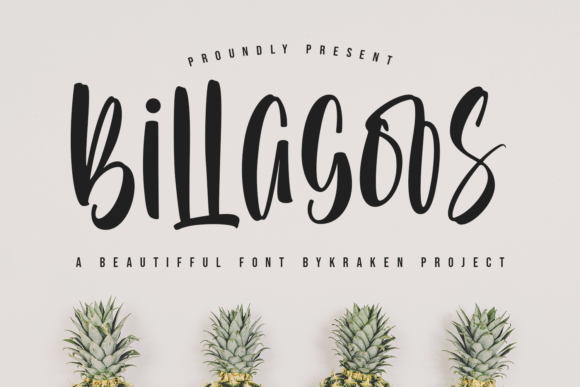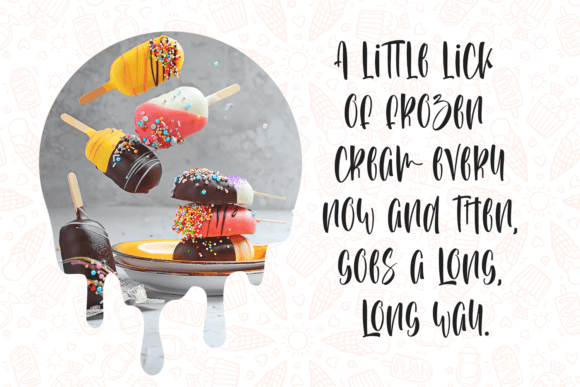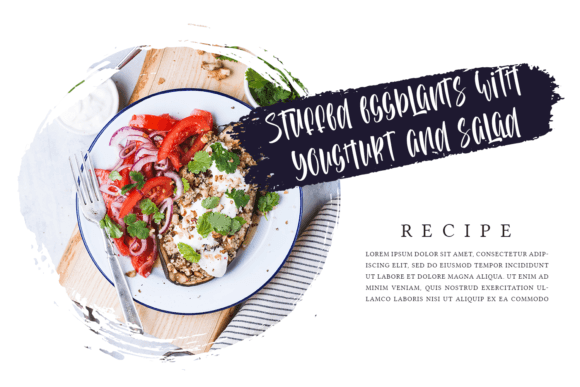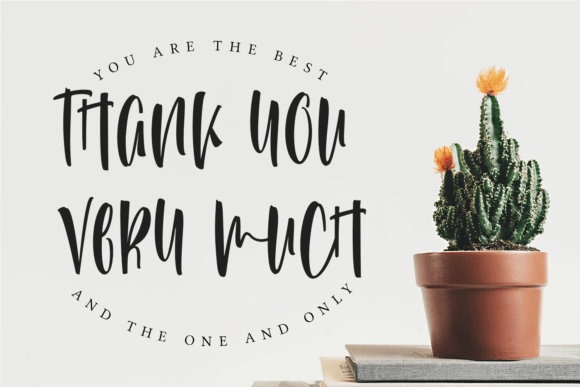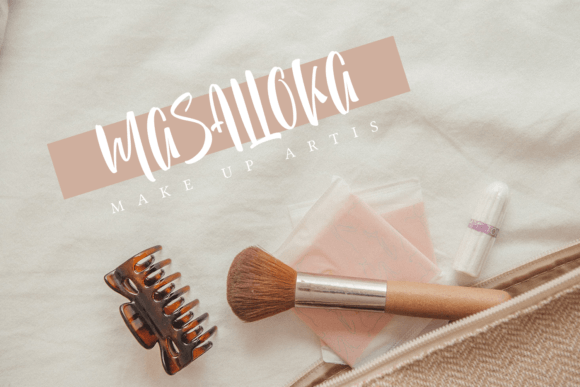
Billagoos Font
“Billagoos” is an exquisite script font featuring a distinctly fresh shape, making it a versatile choice for a diverse range of designs and craft variations. Specifically crafted to cater to those in search of a beautiful and refreshing aesthetic, this font is designed to bring a unique charm to your projects.
The standout feature of “Billagoos” is its fresh and modern shape, contributing to its overall appeal. This quality makes it well-suited for a variety of design applications, allowing it to effortlessly enhance the visual impact of your creations.
One notable advantage of “Billagoos” is its PUA (Private Use Area) encoding. This encoding ensures easy access to a plethora of amazing glyphs and ligatures. By utilizing PUA encoding, designers gain the flexibility to incorporate unique and creative elements into their projects with seamless ease. This feature adds an extra layer of customization and allows for a more personalized and distinctive design.
Whether you’re working on branding materials, craft projects, invitations, or any other creative endeavor, “Billagoos” is equipped to bring a beautiful and refreshing look to your designs. Its script style exudes elegance, making it suitable for both professional and personal applications.
In summary, “Billagoos” is more than just a font; it’s a design asset crafted to provide a beautiful and refreshing touch to your creative works. With its fresh shape and PUA encoding, this script font offers a wide range of design possibilities, making it a valuable addition to your toolkit. Let “Billagoos” be the stylish and versatile font that elevates the visual appeal of your projects with its unique and captivating aesthetic.